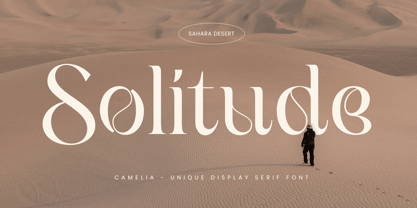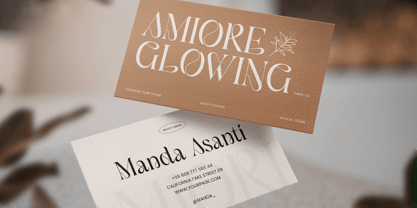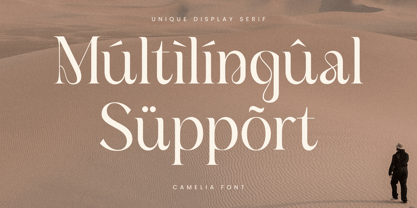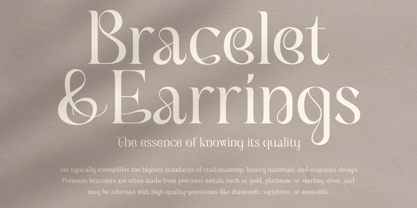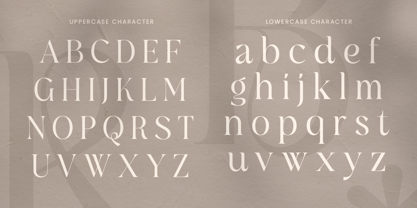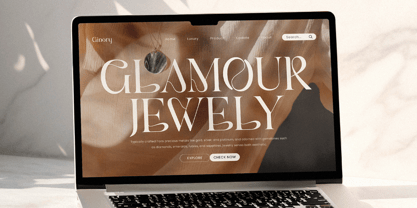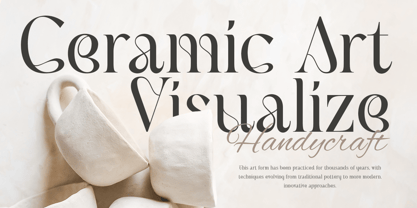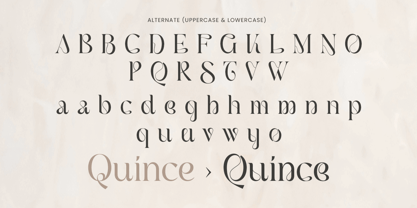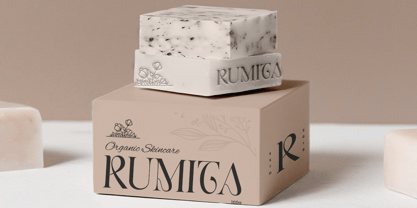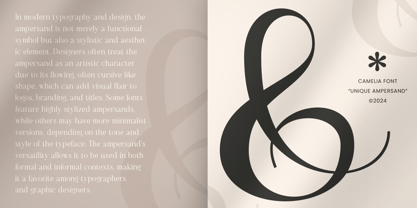
Camelia - Unique Display Serif Font
Camelia is a unique display serif font crafted for projects that demand elegance and character. With its distinct, artistic letterforms, it lends a sophisticated touch to any branding, editorial, or design project. Camelia's graceful serifs and carefully designed structure provide a timeless quality that enhances both digital and print media.
The font's versatility makes it perfect for luxury branding, magazine layouts, and headline use. Its detailed curves and balanced proportions offer readability while making a bold statement. Camelia's artistic edge adds charm and professionalism, ensuring your design stands out in any context.
Choose Camelia for a refined display serif that seamlessly combines modern sensibilities with classic elegance. Its unique features will elevate invitations, logos, and any creative project that requires a touch of distinction.
Artistic Serif Characters Ready
Unique Punctuation, Number, and Symbol
Uppercase and Lowercase